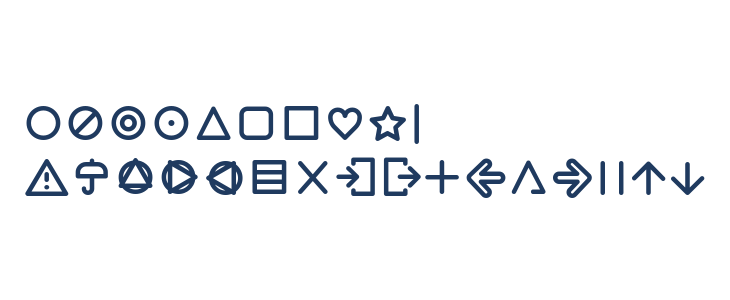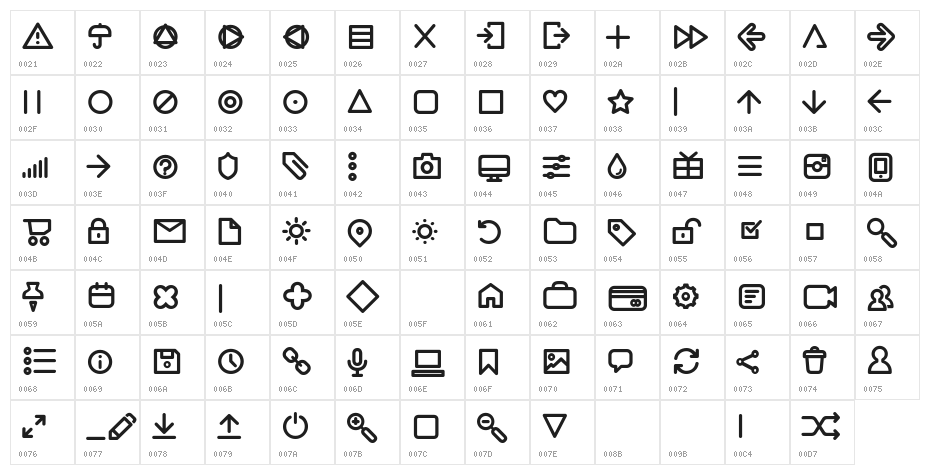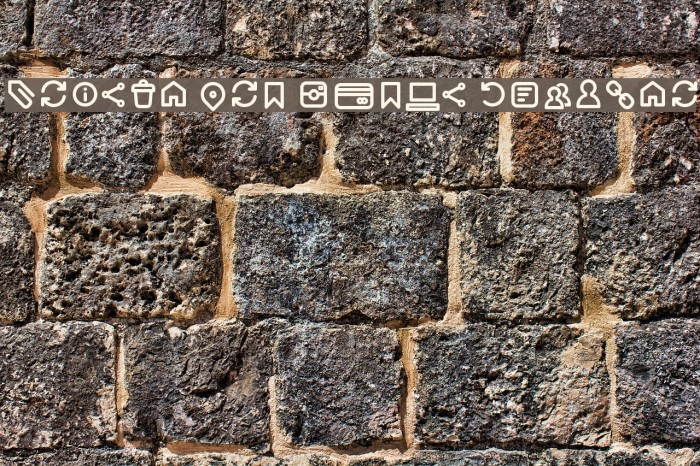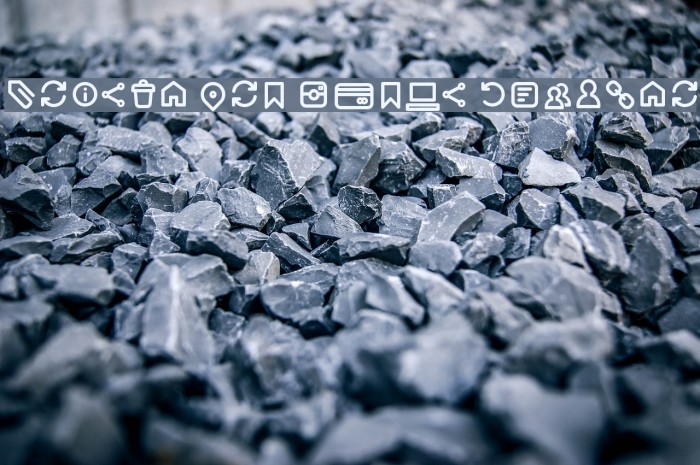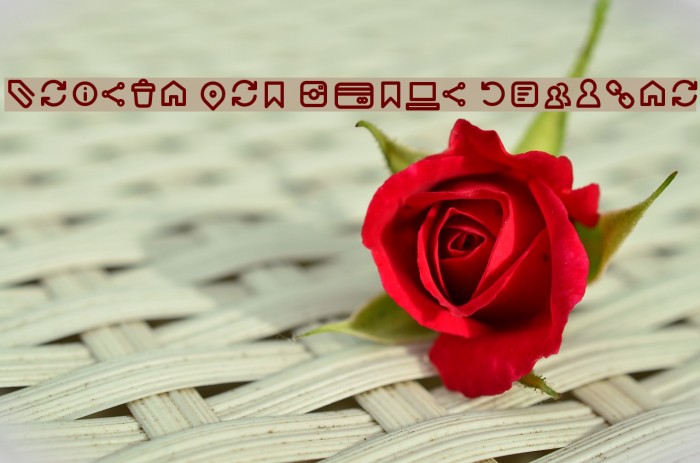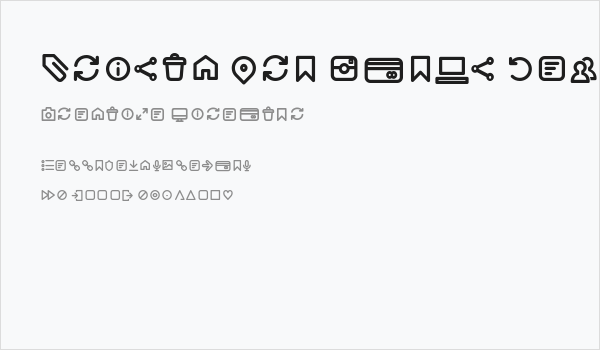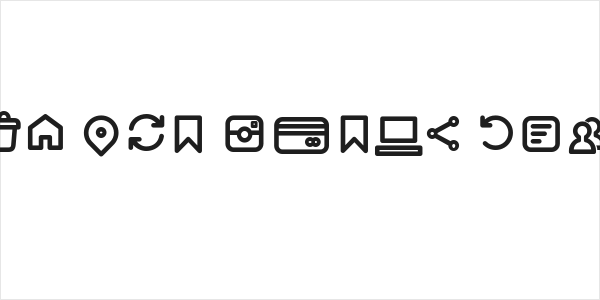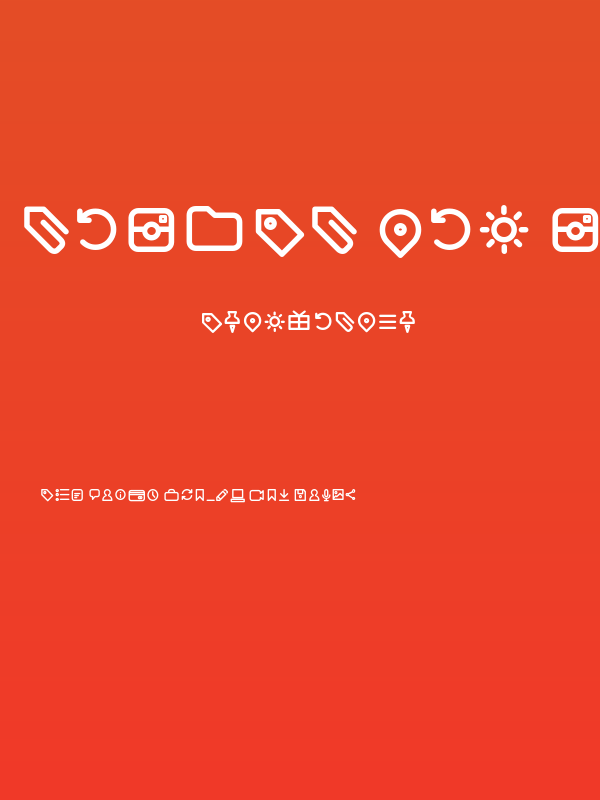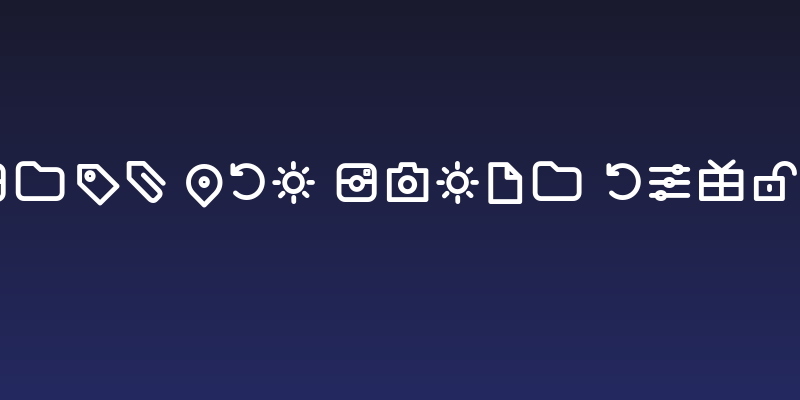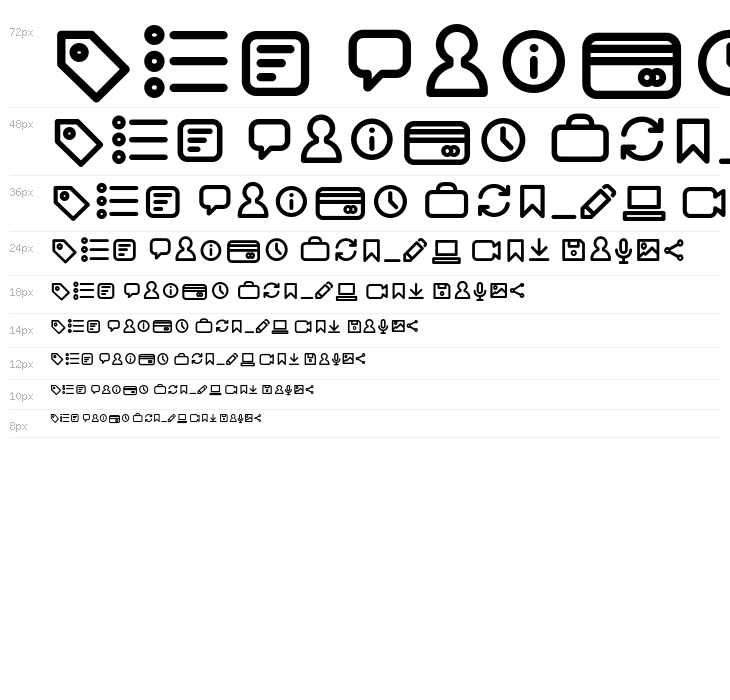
Arista Pro Icons Regular Font
Arista Pro Icons Regular Description
This icon set features a clean and modern design with a consistent line weight, making it suitable for a variety of digital interfaces. The icons are outlined and maintain a uniform stroke thickness, which contributes to a cohesive appearance. The set includes a wide range of symbols, from basic shapes to more complex icons like cameras, computers, and communication tools. Each icon is crafted with simplicity in mind, ensuring clarity and easy recognition at various sizes. The style is minimalistic, focusing on functionality while maintaining a visually appealing aesthetic.
| Use Case | Icons, User Interfaces, Digital Design |
| Proposed Projects | Ideal for app interfaces, web design, user interfaces, and digital presentations. |